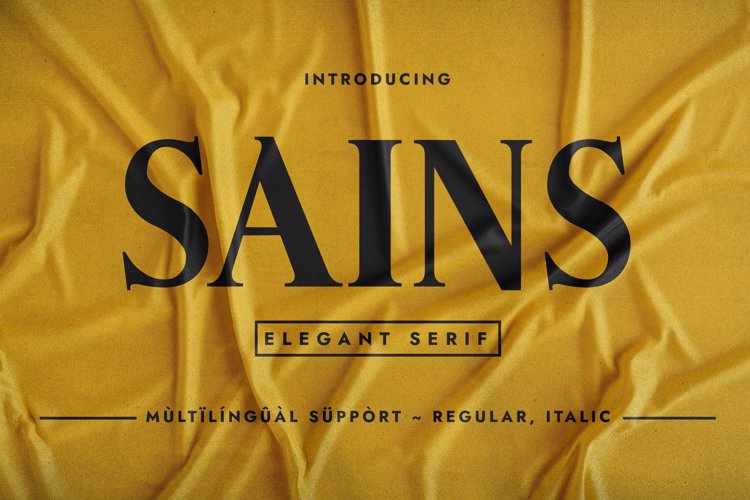
SAINS Font
๐จ Font Name: Sains by Minimalist Art Studio
๐จ Font Description: Sains is a delicate serif with luxurious elegance and multilingual supportโperfect for skincare packaging, editorial branding, and high-end product design.
โ Complete Latin set + multilingual diacritics
โ Alternates, stylistic sets & ligatures
โ Numbers, small caps, and extended punctuation
โ Bonus italics and family styles